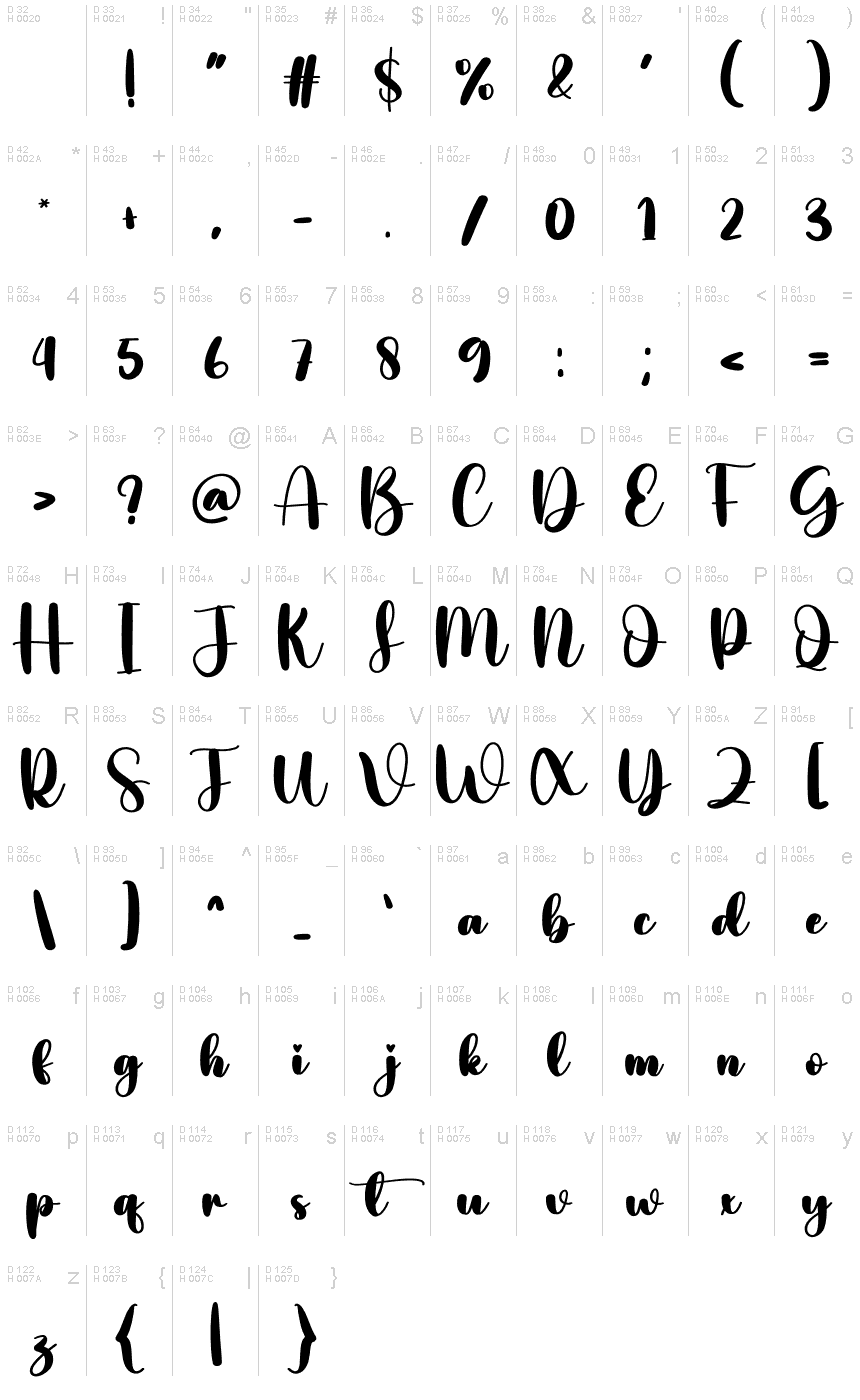
Maybe
Maybe, a semi-bold calligraphy font designed by Scratchones, is perfect for a wide range of creative projects. With its modern and elegant style, this typeface adds a touch of sophistication to both formal and informal designs.
Whether you're creating invitation cards, letterheads, website logos, or social media graphics, Maybe is the ideal choice. Its beautiful creative strokes make it suitable for banners, advertisements, brochures, and packaging products as well. Even leather products can benefit from the luxurious and attractive look that Maybe provides. This versatile font includes a complete set of upper and lowercase letters, numbers, punctuation marks, and ligatures. The realistic style of the lowercase letters with their start and end forms adds an extra level of authenticity to your designs.
The latest style letters are perfect for wall displays, wedding invitations, social media post logos, advertisements, product packaging, product designs, labels, photography, watermarks, invitations, stationery, and any project that requires taste handwriting.